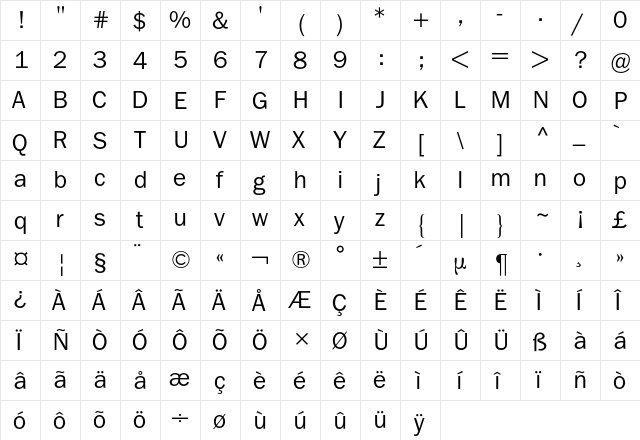
Franklin ITC BQ Regular Font Preview
Franklin ITC BQ Regular
Franklin ITC BQ Regular Font Details
Design Context for Franklin ITC BQ Typeface
Franklin ITC BQ is a composed and adaptable typeface that performs quietly and consistently across a wide range of design contexts.